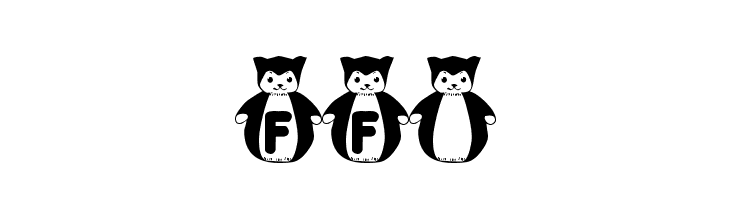
( Renny Murray - www.rennysniche.com )
A whimsical font with letters inside penguin shapes, perfect for playful designs.
( Renny Murray - www.rennysniche.com )
A playful font with characters embedded in fly illustrations, offering a whimsical and decorative style.
( Renny Murray - www.rennysniche.com )
A playful alligator motif with a bold, cartoonish style.
( Renny Murray - www.rennysniche.com )
A playful, bold font with cat illustrations and a 3D effect.
( Renny Murray - www.rennysniche.com )
A playful, decorative font with characters on a tongue-in-lips graphic.
( Renny Murray - www.rennysniche.com )
A whimsical font with characters inside cartoon owl designs, perfect for playful projects.
( Renny Murray - www.rennysniche.com )
A whimsical font with characters inside cartoon penguin silhouettes, perfect for playful designs.
( Renny Murray - www.rennysniche.com )
A playful, bold font with characters on cartoonish signposts, offering a whimsical and decorative style.